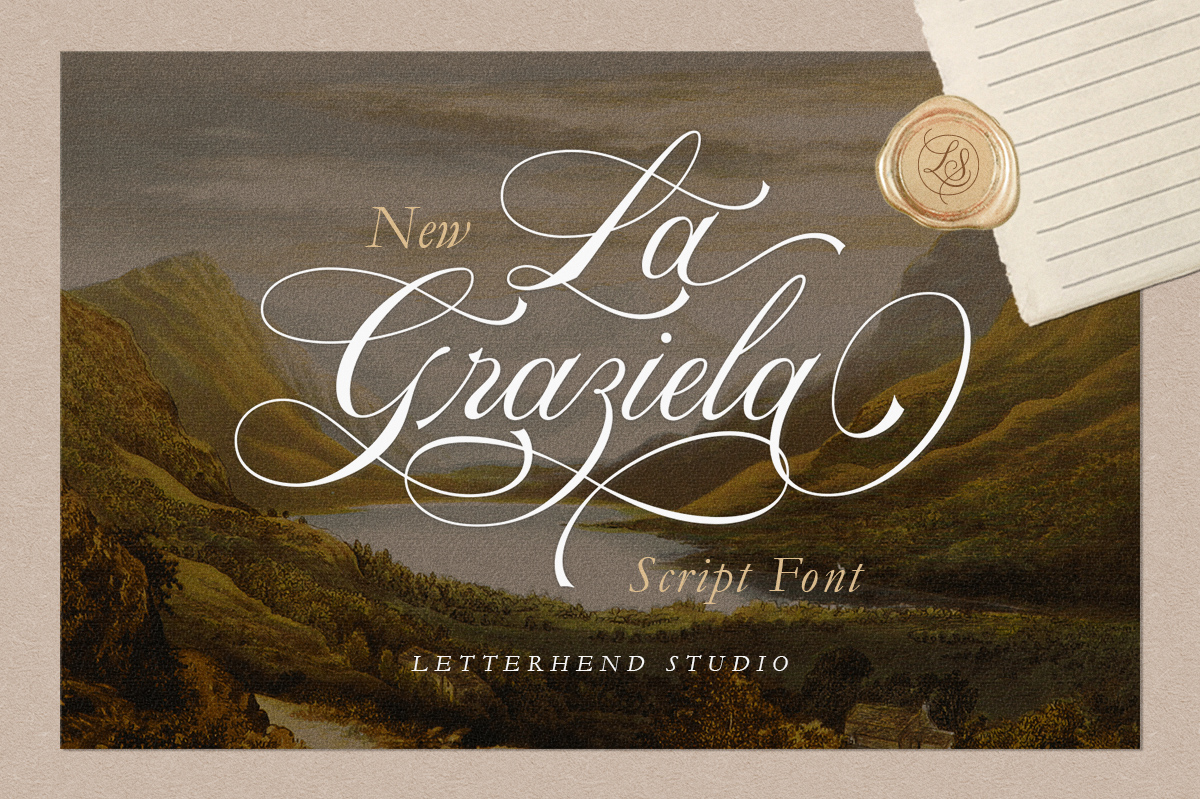
La Graziela Font
The La Graziela Font is a stunning and elegant typeface that brings a touch of romantic sophistication to any design project. Its beautifully flowing strokes and delicate curves make it a perfect choice for creating luxurious wedding invitations, high-end branding, and bespoke stationery. This font is also ideal for fashion-related content, creative blog headers, and social media graphics that require a unique and personal touch. With its artistic charm and graceful character, La Graziela Font can instantly elevate a design, giving it a handcrafted and exclusive feel that is both memorable and refined.
What makes the La Graziela Font so exciting is its exceptional ability to blend classic calligraphy with a fresh, modern aesthetic. The font feels both timeless and perfectly suited for today’s design trends. Its effortless rhythm and natural connections between letters create a sense of authenticity and warmth. This is more than just a font; it’s an expressive tool that conveys emotion and personality, making it a powerful choice for brands that want to communicate intimacy and elegance. The intricate details of its letterforms ensure that it stands out, capturing the viewer's attention and leaving a lasting impression.
The La Graziela Font family often comes equipped with a rich set of features that provide incredible creative flexibility. Designers will find a comprehensive set of uppercase and lowercase letters, numbers, and punctuation. The font truly shines with its extensive collection of ligatures and swashes, which allow you to create custom lettering and elegant flourishes. These stylistic alternates enable you to craft a unique visual identity for every project, making it feel truly bespoke. The full range of characters and features ensures that this font is not only beautiful but also highly functional for a variety of typographic needs.